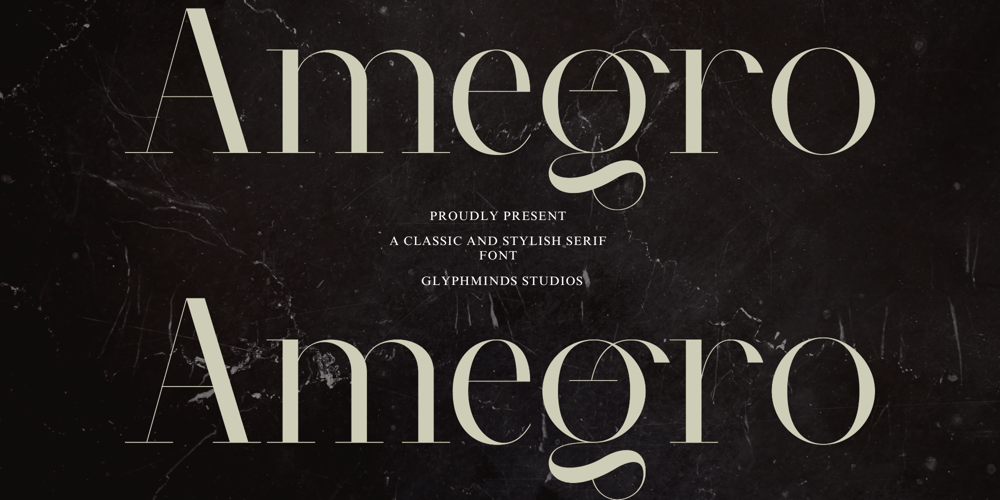
Amegro Font Family was designed by Baliya Ibnu Bi Malkan and published by Glyphminds Studios. Amegro contains 1 styles and family package options. Welcome to the world of Amegro, a classic serif font meticulously crafted to bring sophistication and style to your design projects. Inspired by the timeless charm of traditional typography, Amegro seamlessly blends classical elements with modern sensibilities, resulting in a font that exudes refined elegance and timeless appeal.